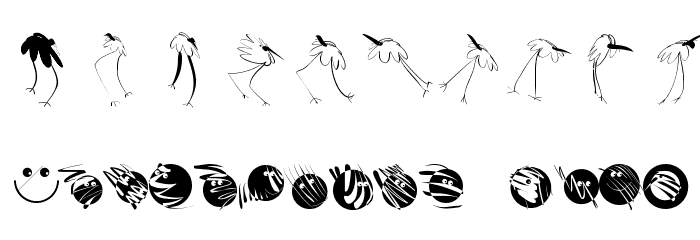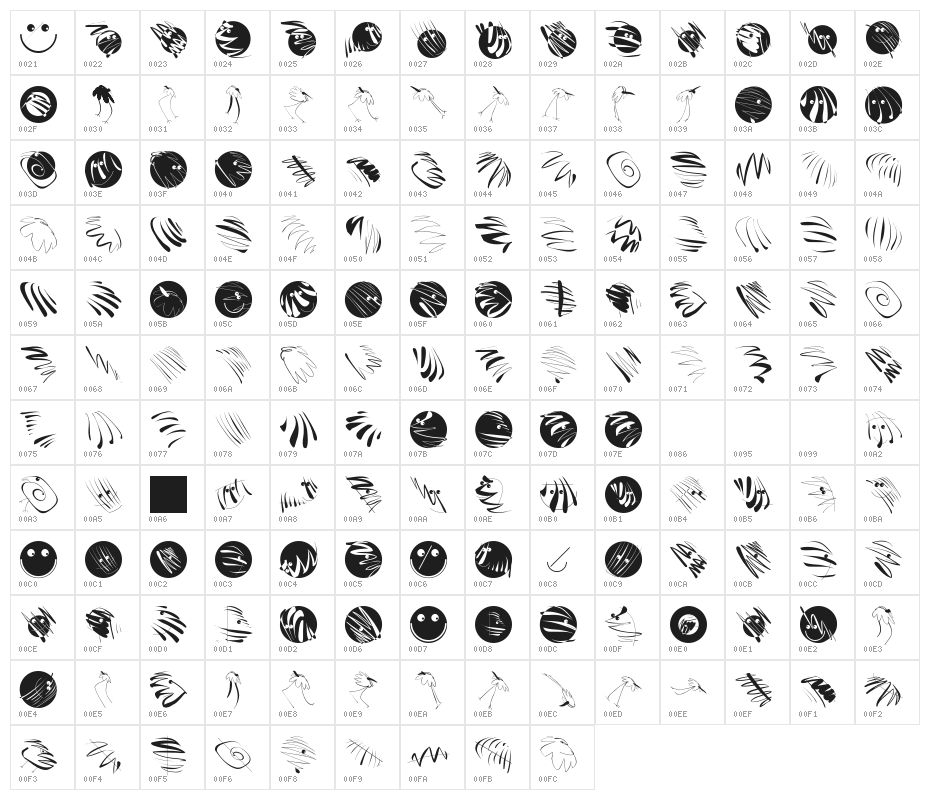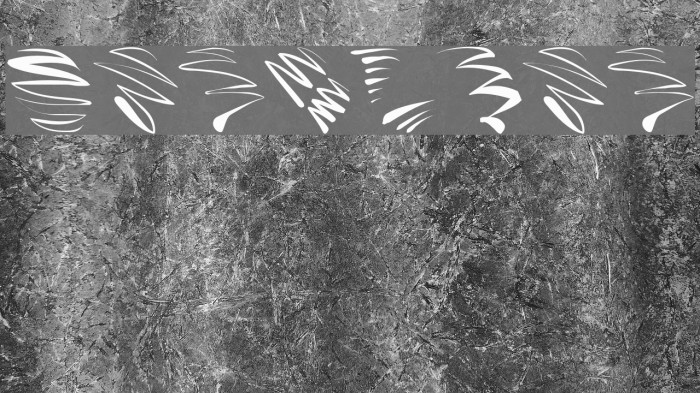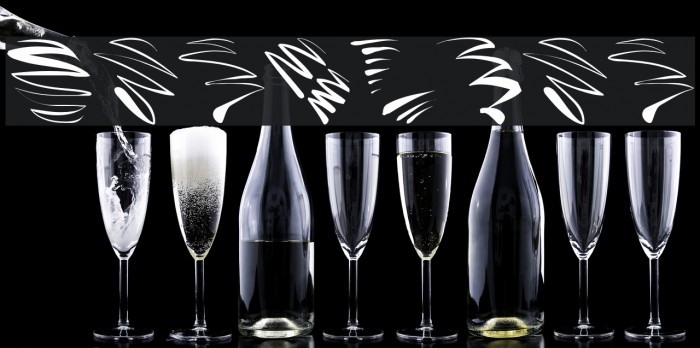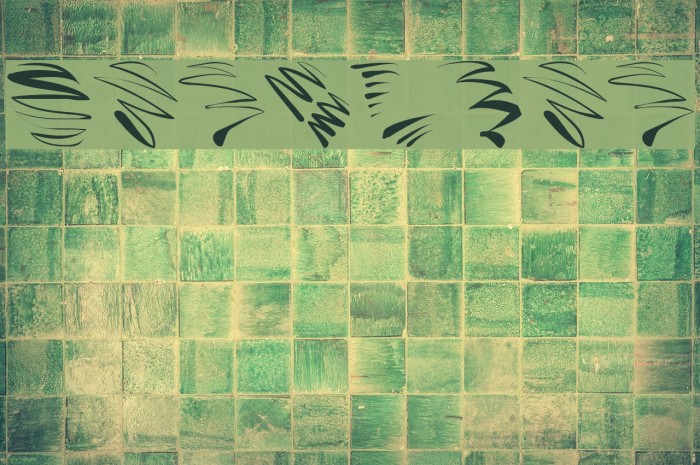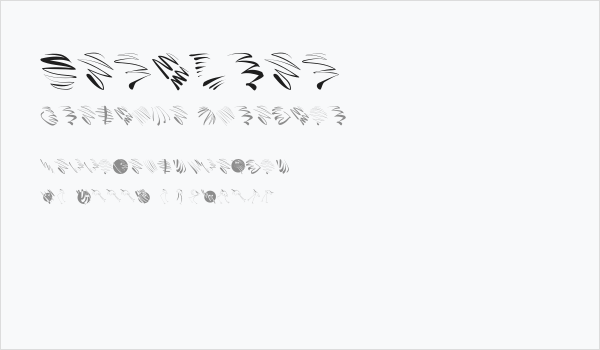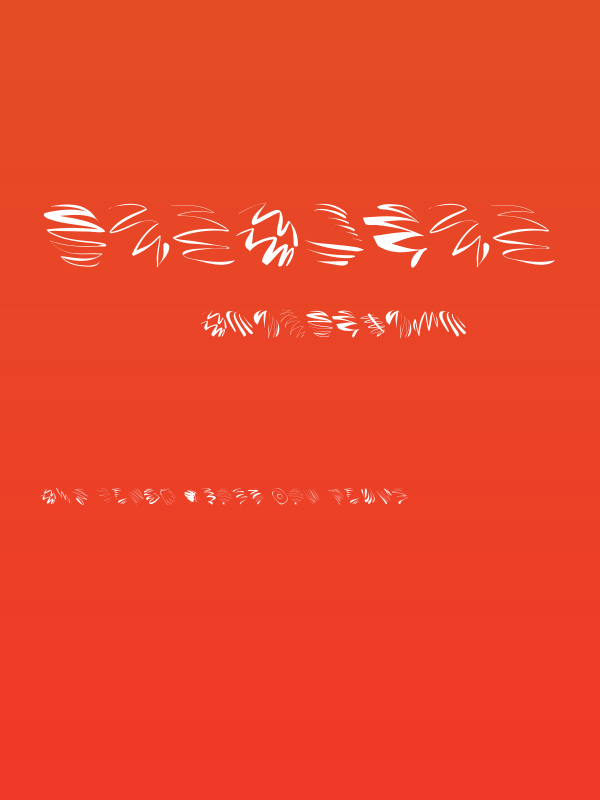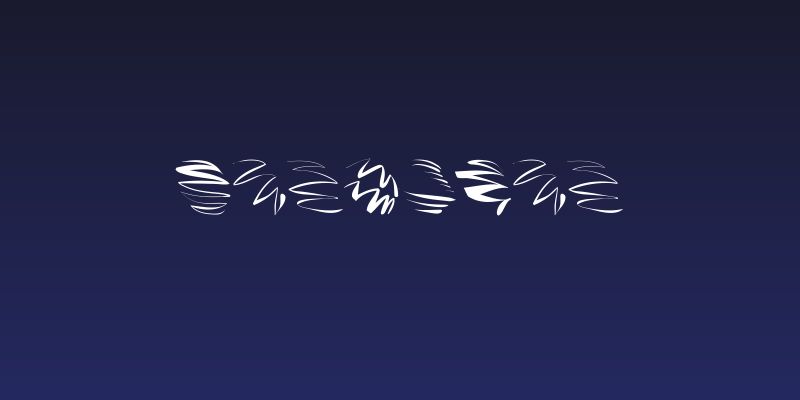
Gestures Font
Gestures Description
Highly abstract, expressive glyphs composed of dynamic, gestural strokes, with each character rendered in a loose, sketch-like style. The forms are non-traditional and prioritize artistic movement over legibility, resulting in a playful and energetic visual language.
| Overall Style | Decorative, Artistic, Abstract |
| Use Case | Logos, Headlines, Posters, Artistic projects |
| Proposed Projects | Art posters, experimental branding, album covers, creative event invitations, editorial illustrations. |